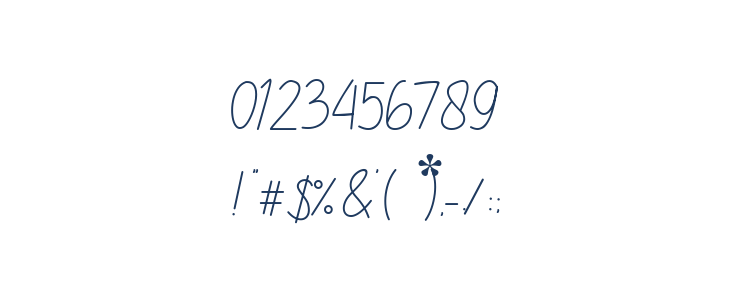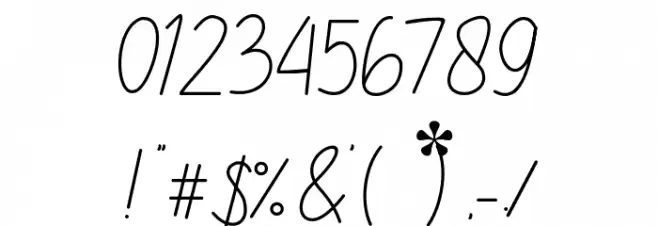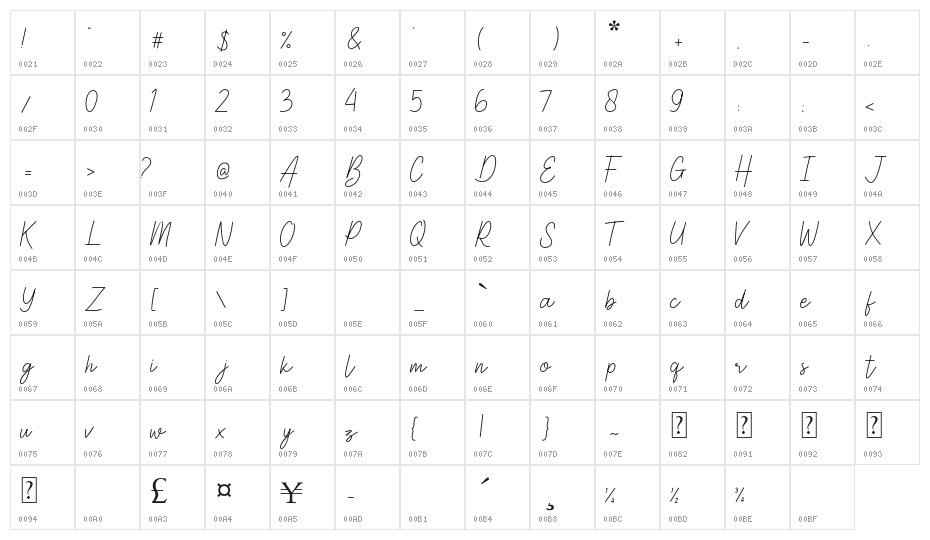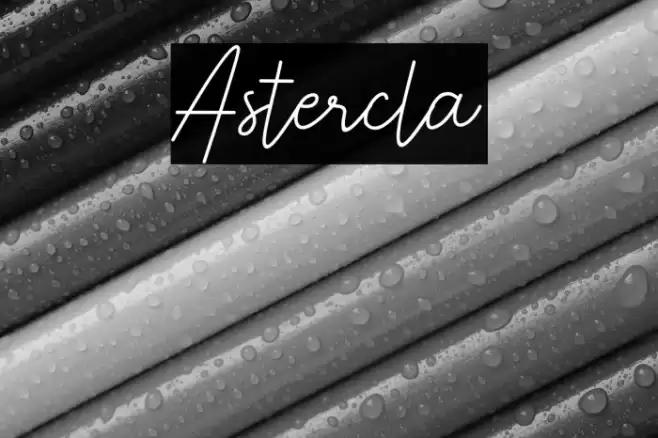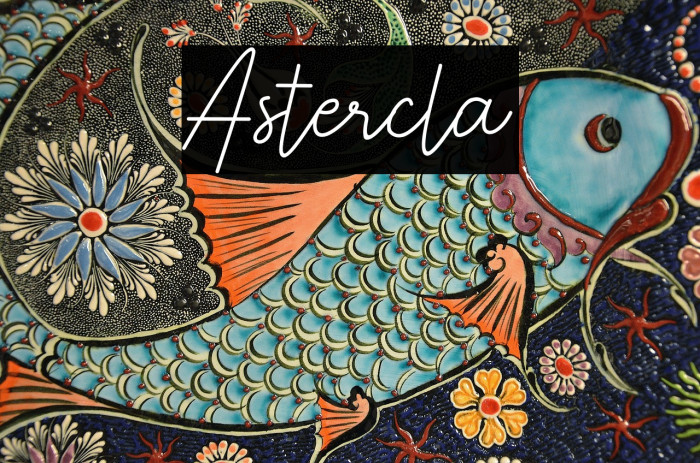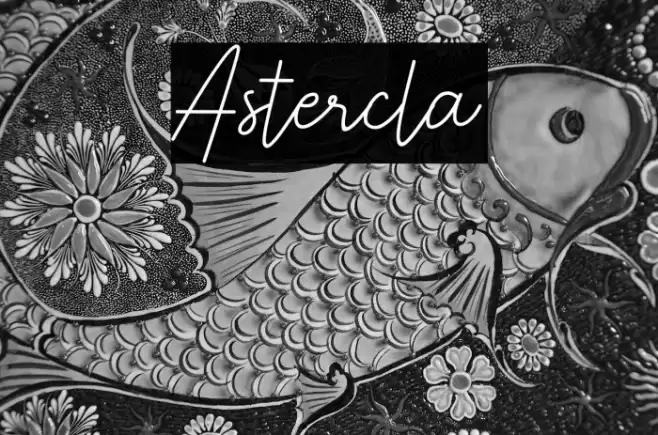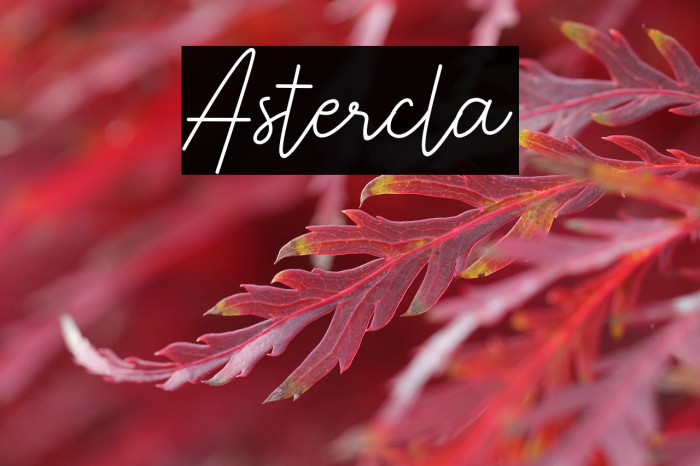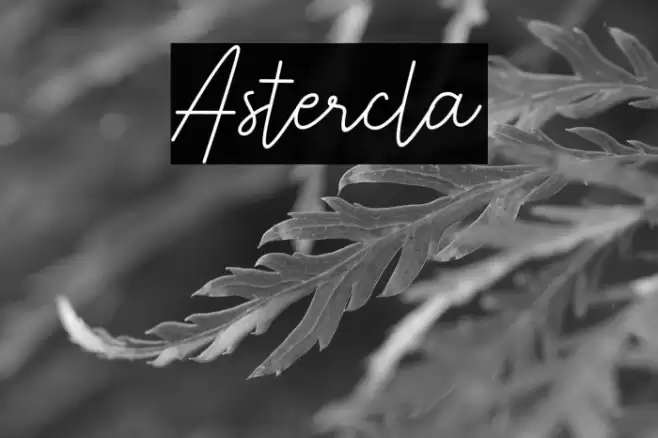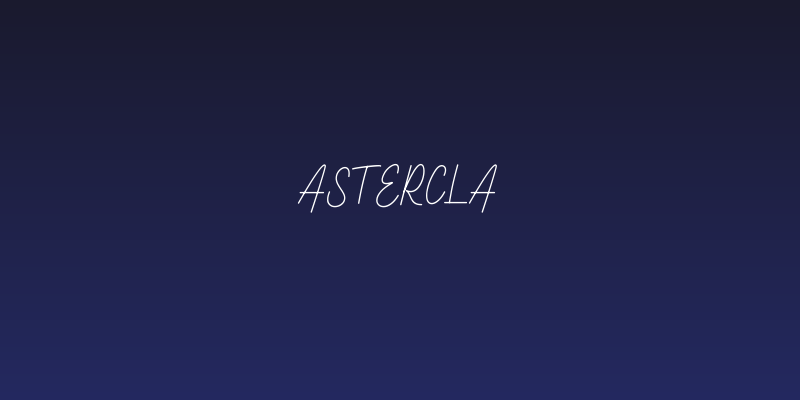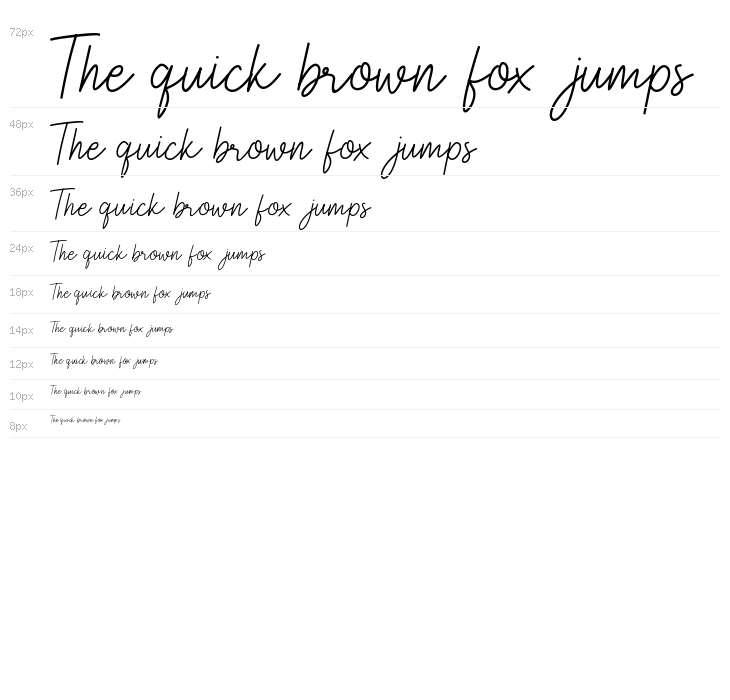
Astercla Font
Astercla Description
This font features an elegant and flowing script style, characterized by its smooth, cursive strokes and a handwritten appearance. The uppercase letters are tall and slightly slanted, giving a sense of movement and grace. The lowercase letters maintain a consistent flow, with rounded edges and a natural, organic feel. The numerals are clear and legible, matching the overall aesthetic of the font. Special characters are thoughtfully designed to complement the script style, adding versatility for various uses.
| Proposed Projects | Ideal for wedding invitations, greeting cards, personal branding, and elegant packaging designs. |